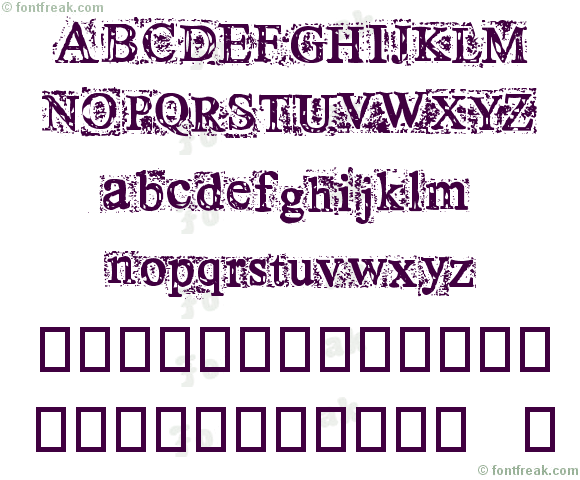
Times New Omen
Times New Omen by Pennyzine is a striking serif font that expertly blends traditional typography with a unique, distressed aesthetic. Released as freeware, this font showcases a distinctive vintage charm, characterized by its rough edges and textured appearance. The stroke weight varies throughout the typeface, creating an engaging visual contrast that enhances its overall appeal. The spacing is well-balanced, allowing for easy readability while maintaining an artistic flair. The decorative elements, including the slightly worn look, add character and depth, making it an excellent choice for various creative projects.
This font is particularly well-suited for use cases such as vintage-themed wedding invitations, where its rustic charm can enhance the romantic feel. It also shines in movie posters, especially for films with a historical or horror twist, where the distressed look can create an eerie atmosphere. Restaurant menus can benefit from its classic yet edgy vibe, making it a great choice for bistros or cafes that want to convey a sense of warmth and nostalgia. Additionally, graphic designers looking to make a statement in branding projects will find this font a compelling option, as it stands out in logos and promotional materials.
The target audience for Times New Omen includes graphic designers, small business owners, and content creators who seek to add a unique touch to their projects. Its versatility allows it to resonate with a wide range of creative professionals.
What truly makes Times New Omen stand out is its ability to evoke a sense of nostalgia while remaining fresh and engaging. The combination of classic serif styling and a modern, distressed finish creates a captivating font that is perfect for anyone looking to make an impression. For those interested, the Times New Omen font free download is readily available, making it an accessible choice for all your design needs.